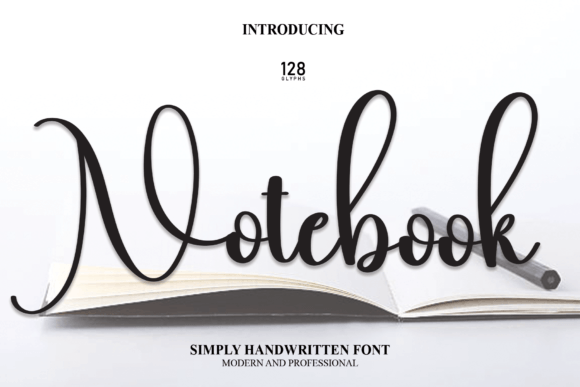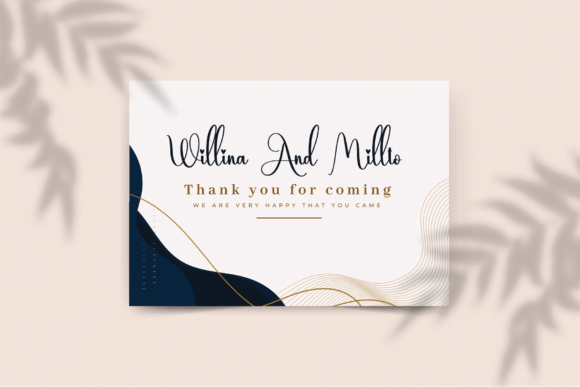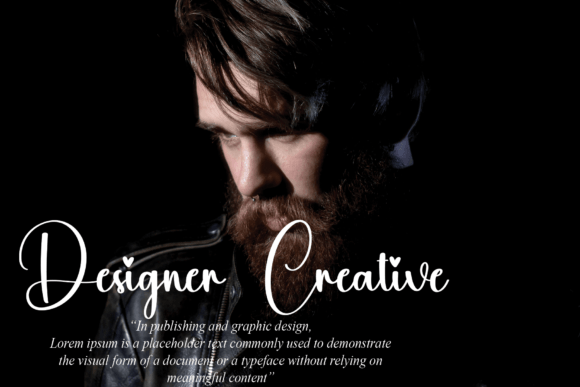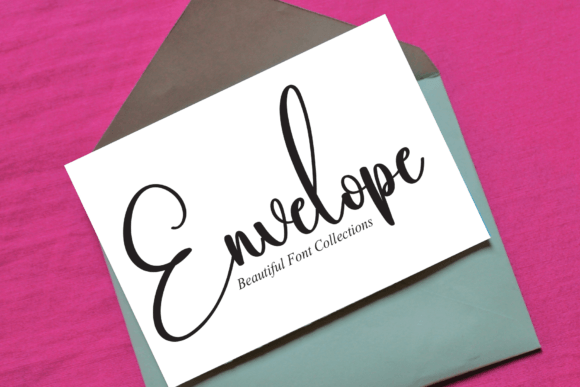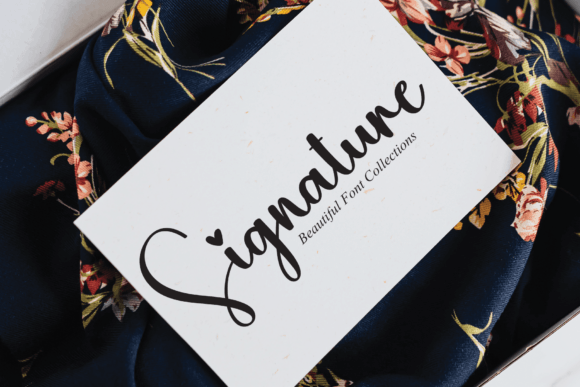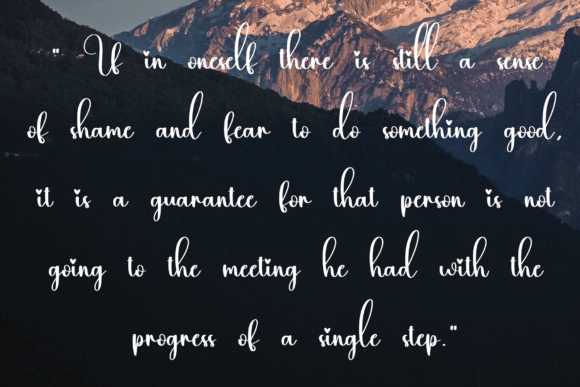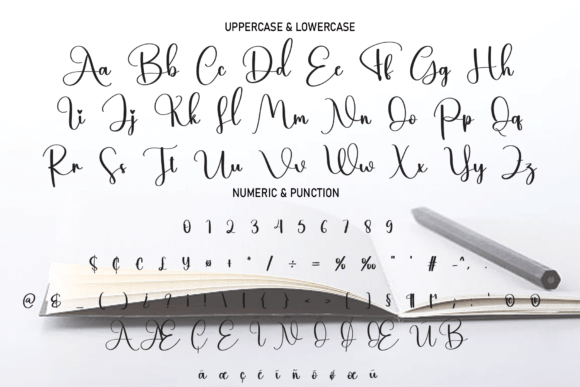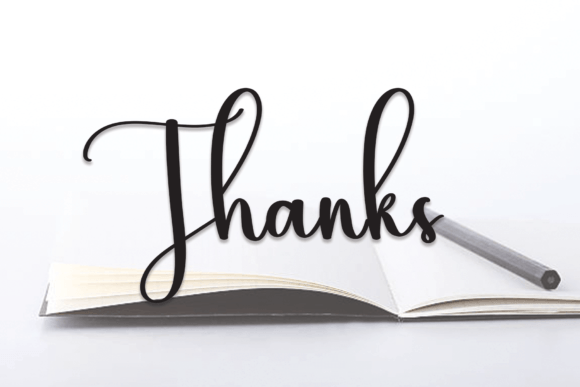
Notebook Font
About Notebook Font
“Notebook” is a delightful handwritten font that exudes elegance and charm, making it an excellent choice for your creative projects. Its meticulous design and elegant touch make it a standout font, perfect for enhancing your favorite endeavors. With “Notebook,” you are not just choosing a font; you are selecting a timeless piece of art that can transform your designs into spectacular masterpieces.
The allure of “Notebook” lies in its distinct and sophisticated style. Each character is carefully crafted, radiating a sense of refinement and creativity. The font’s handwritten quality adds a personal and intimate touch to your projects, forging a connection with your audience. Whether you’re working on invitations, cards, or digital graphics, “Notebook” infuses a sense of grace, making your projects truly standout.
One of the key strengths of “Notebook” is its versatility. It effortlessly adapts to various themes and moods, making it suitable for both formal and informal contexts. Whether you’re designing a professional presentation or a heartfelt message, this font complements the tone of your project perfectly. Its legibility ensures clear communication, while its stylish appearance elevates the overall visual appeal, leaving a lasting impression on viewers.
Adding “Notebook” to your creative toolkit opens up a world of possibilities. Its timeless design ensures that your creations remain relevant and visually appealing across different platforms and mediums. The font’s ability to convey emotions and capture attention makes it a powerful asset for designers looking to make a genuine impact. With “Notebook,” your designs transcend mere visuals; they evoke feelings and create memorable experiences.
In summary, “Notebook” is more than just a font; it’s a statement of sophistication and creativity. Its elegant touch and timeless style make it a perfect choice for any designer. Embrace the beauty of “Notebook” and let it breathe life into your projects, transforming them into visually stunning works of art. Whether you’re a seasoned professional or an aspiring creator, this font is sure to inspire and enhance your creative endeavors, making them truly spectacular.